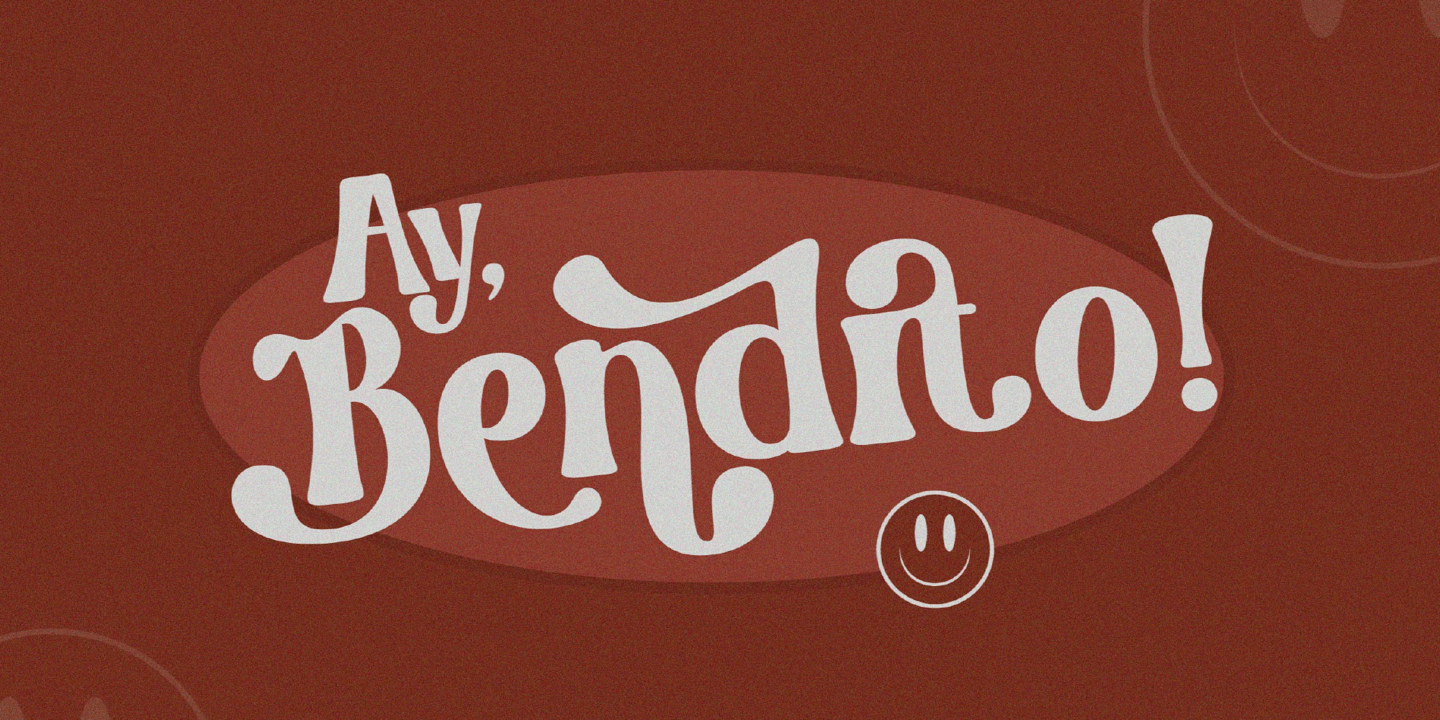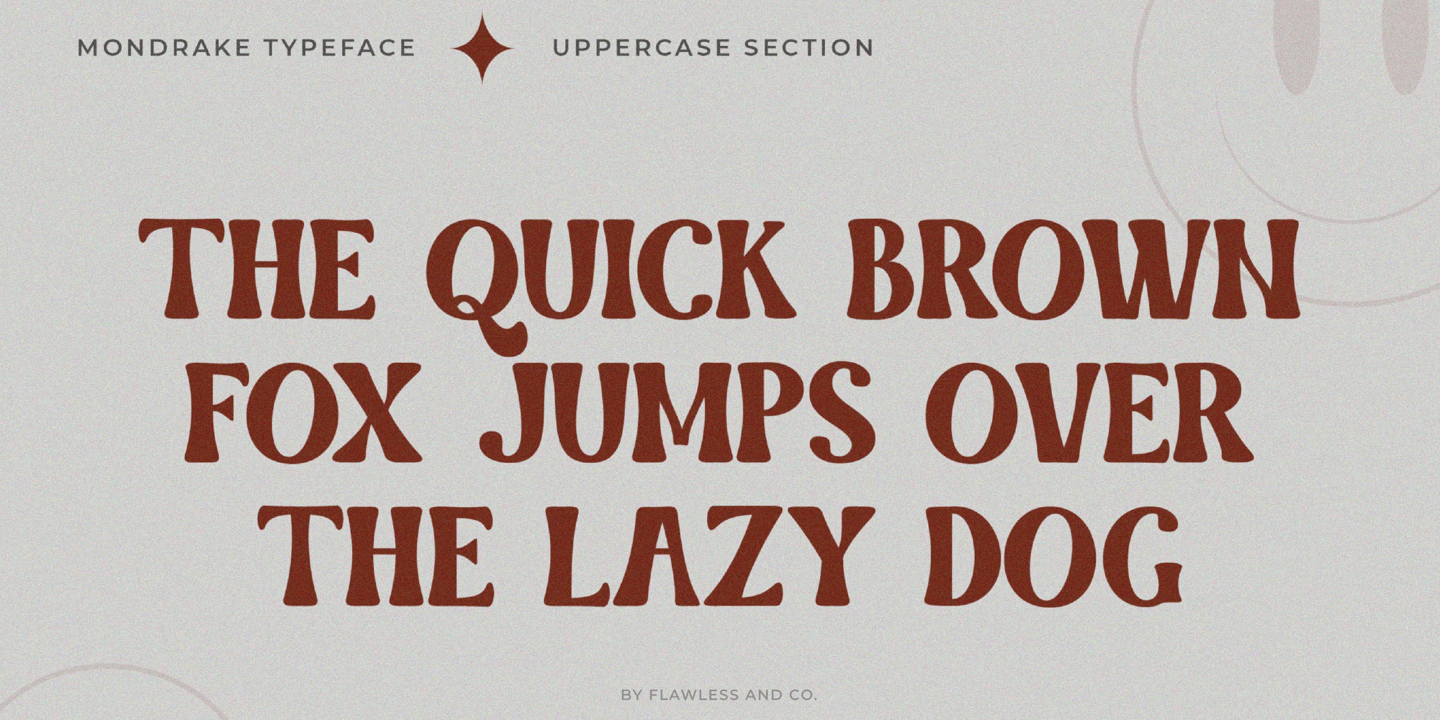
Mondrake is a modern retro with a fun and bold style that perfect for your retro-themed projects. Try out some alternate characters for another visual result!
There's some connected letters and some alternates that suitable for any graphic designs such as branding materials, t-shirt, print, business cards, logo, poster, t-shirt, photography, quotes .etc
This font support for some multilingual. Also contains uppercase A-Z and lowercase a-z, alternate character, numbers 0-9, and some punctuation.